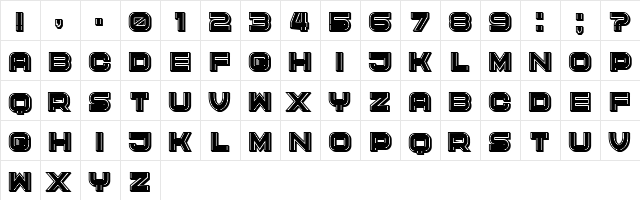
Cyber Princess 3D Filled Regular
Design Context for Cyber Princess 3D Filled Typeface
Cyber Princess 3D Filled channels digital-age aesthetics through its sharp, structured letterforms — ideal for brands that want to signal innovation.
Pro Tip: Use Cyber Princess 3D Filled in combination with a neutral sans for body text. Let it define the brand voice in headlines while keeping reading comfortable elsewhere.